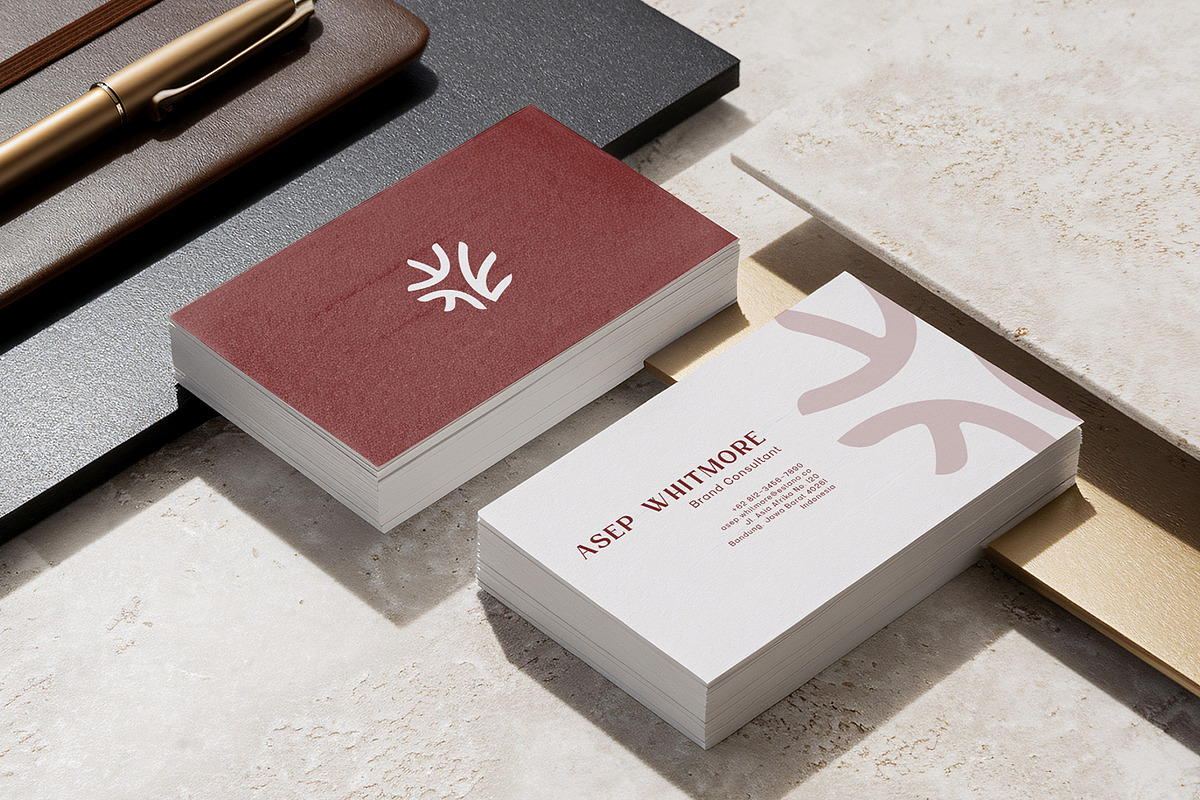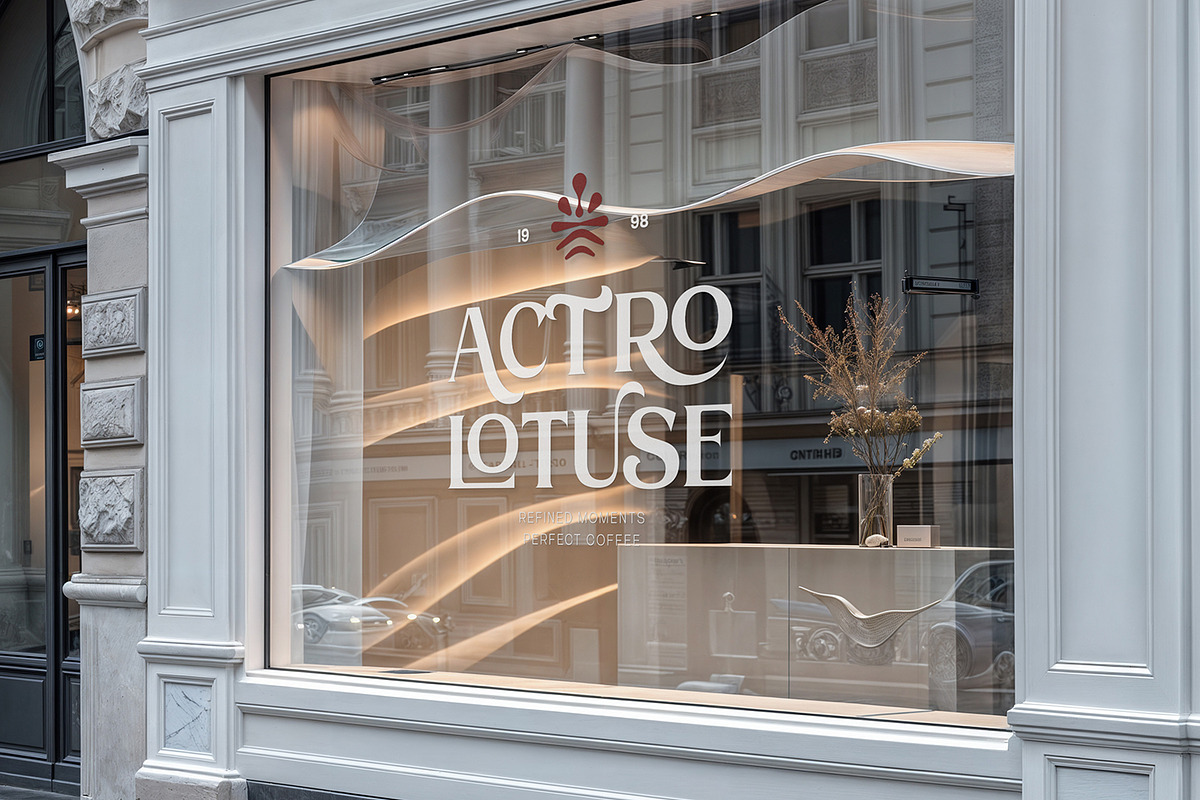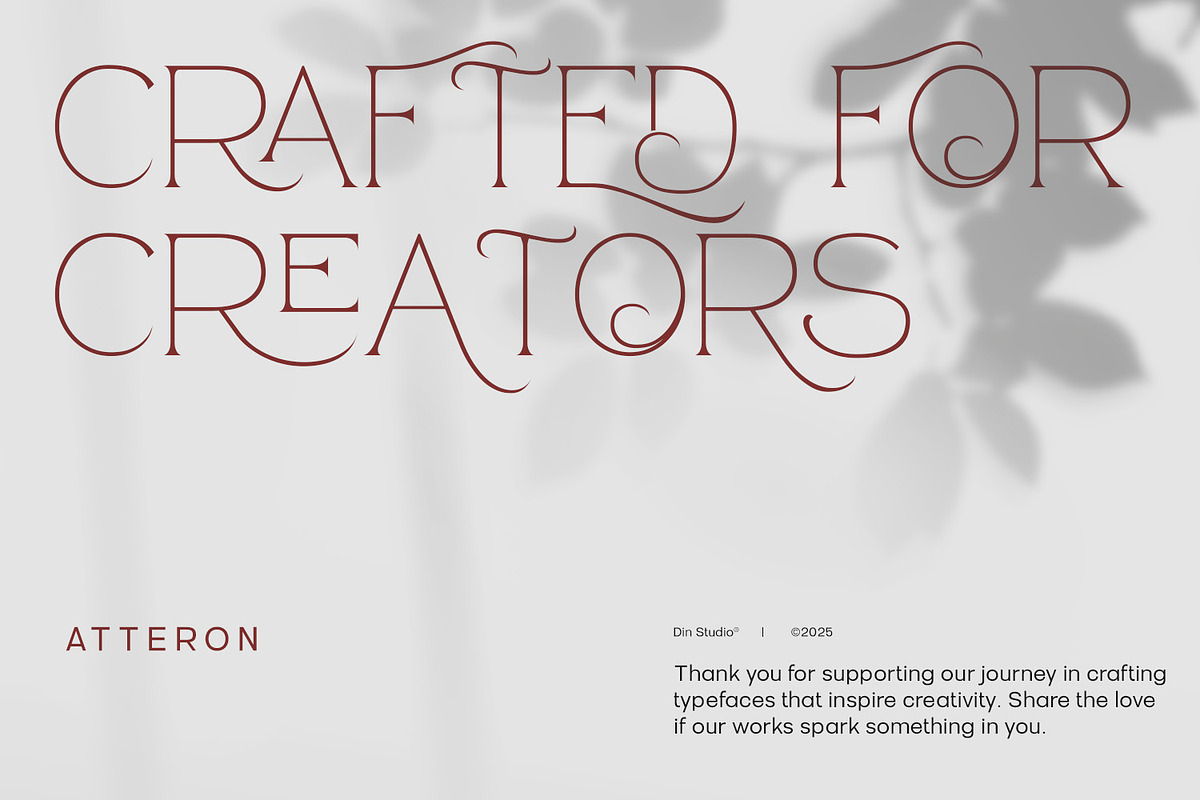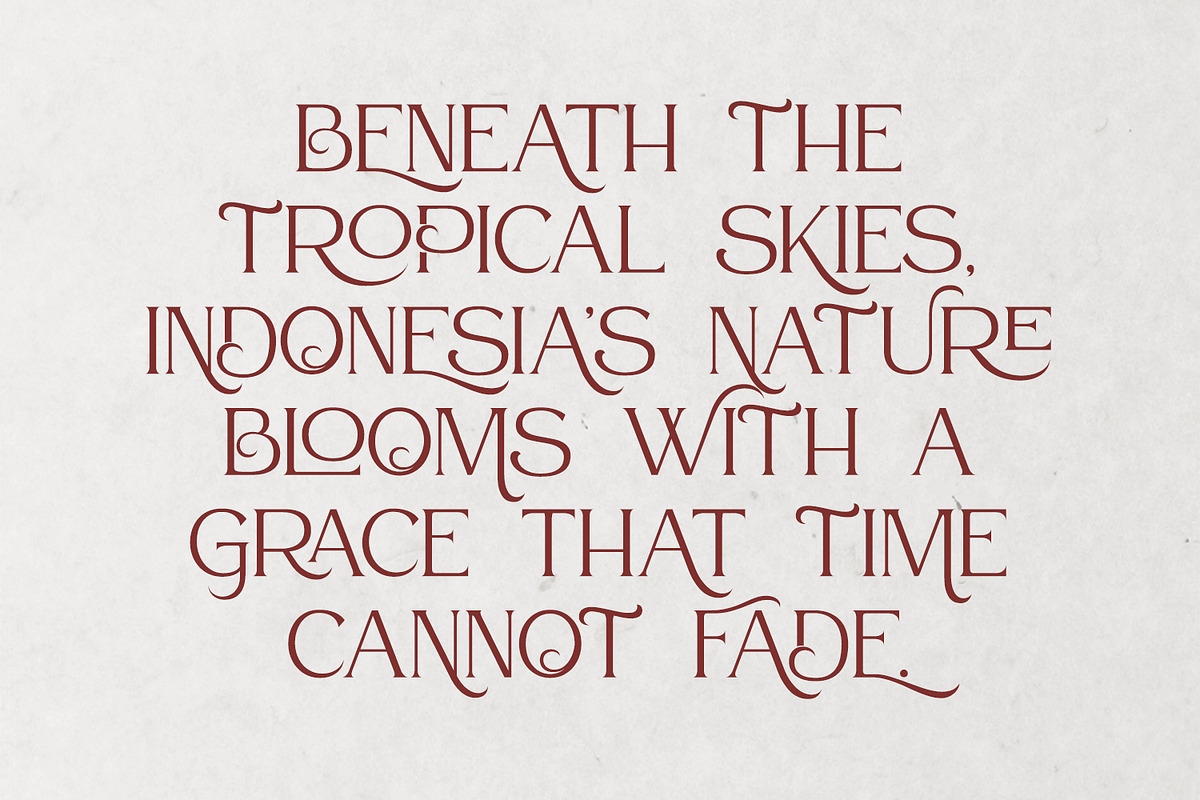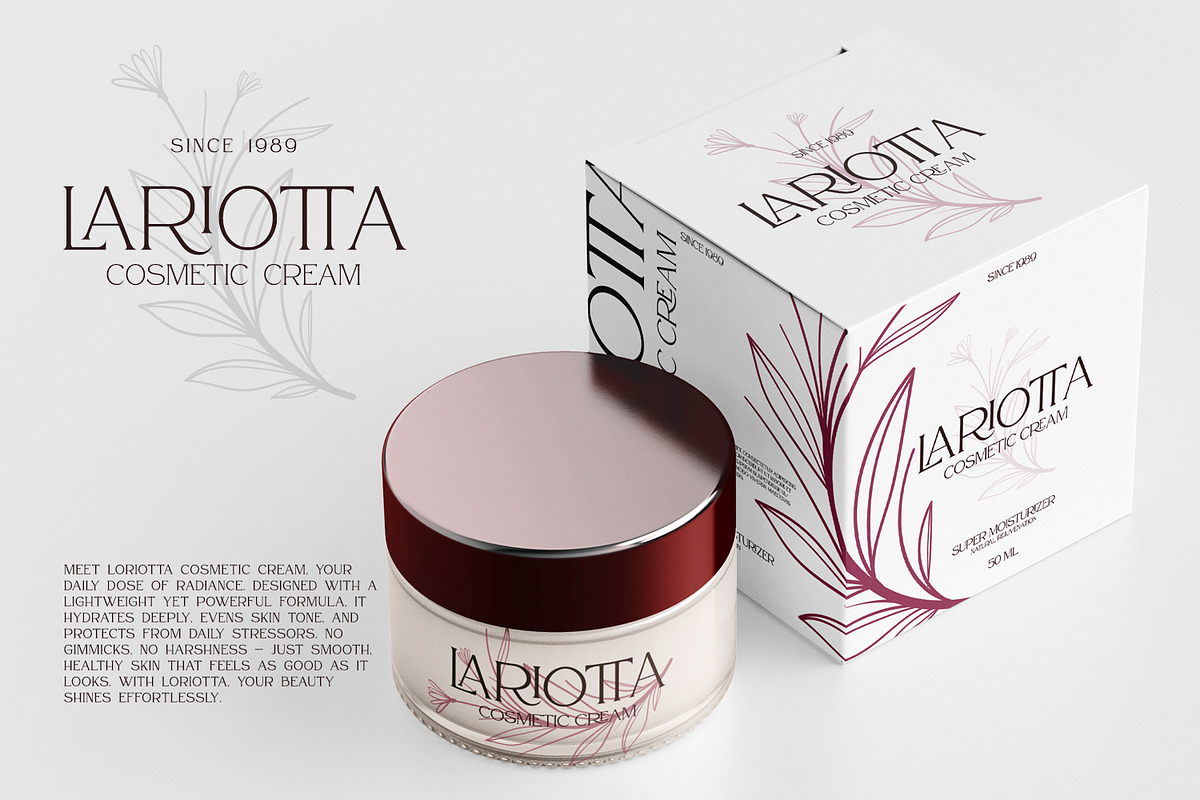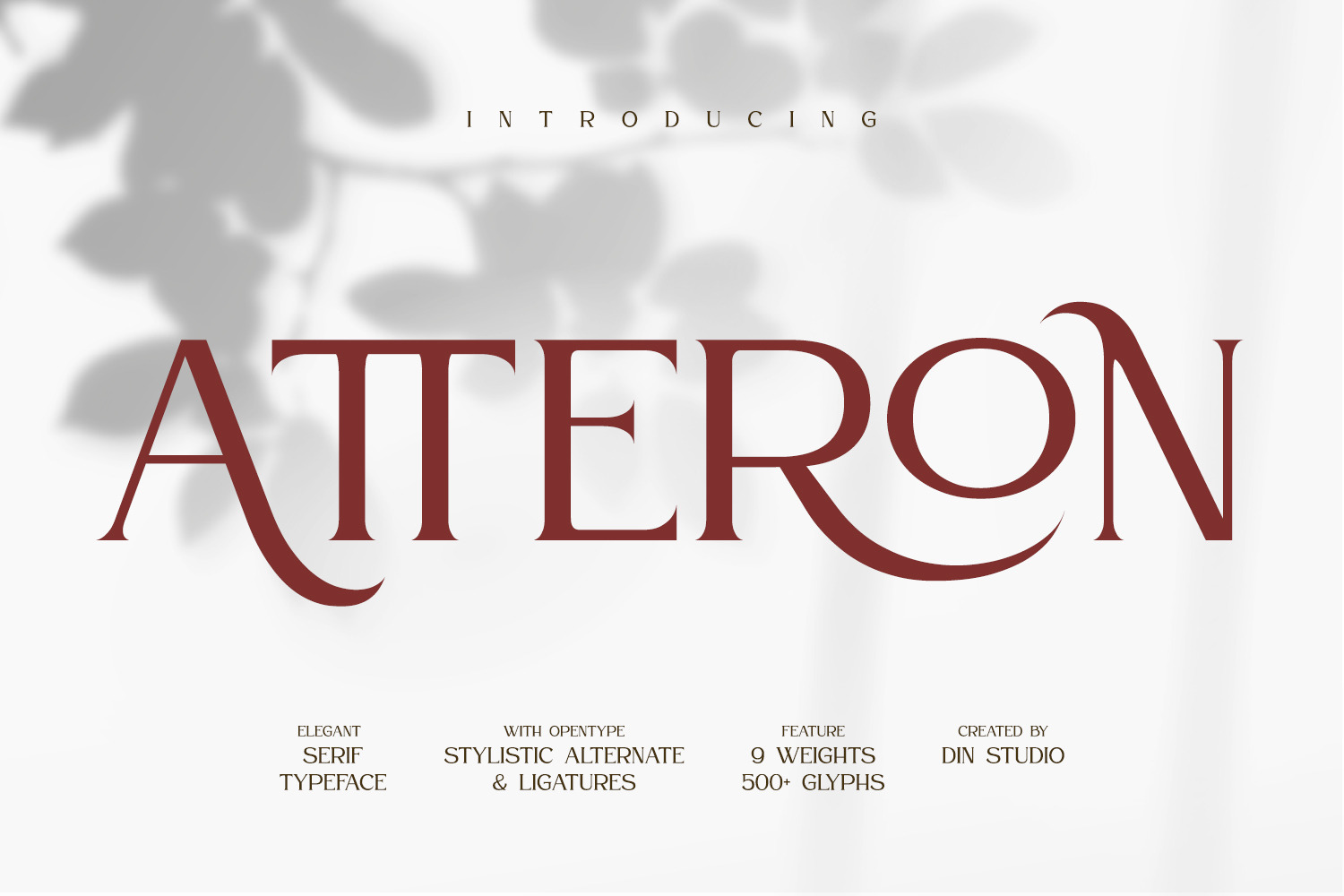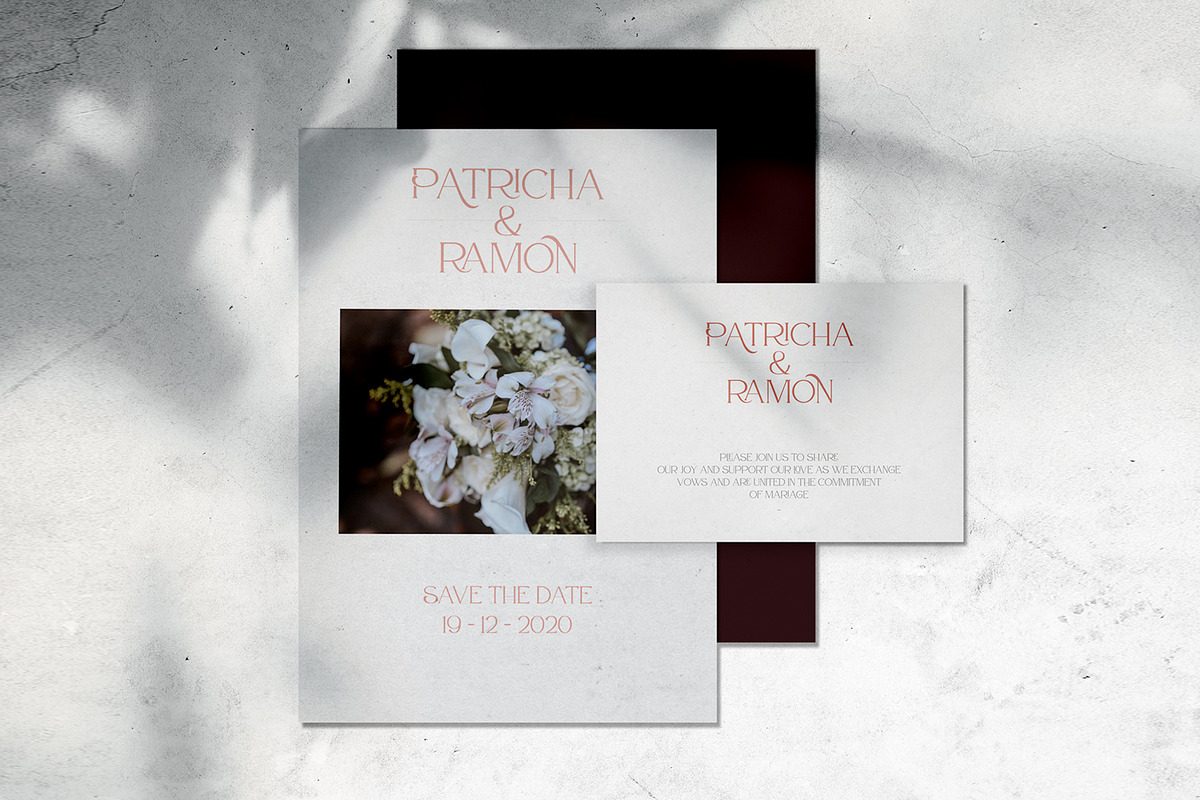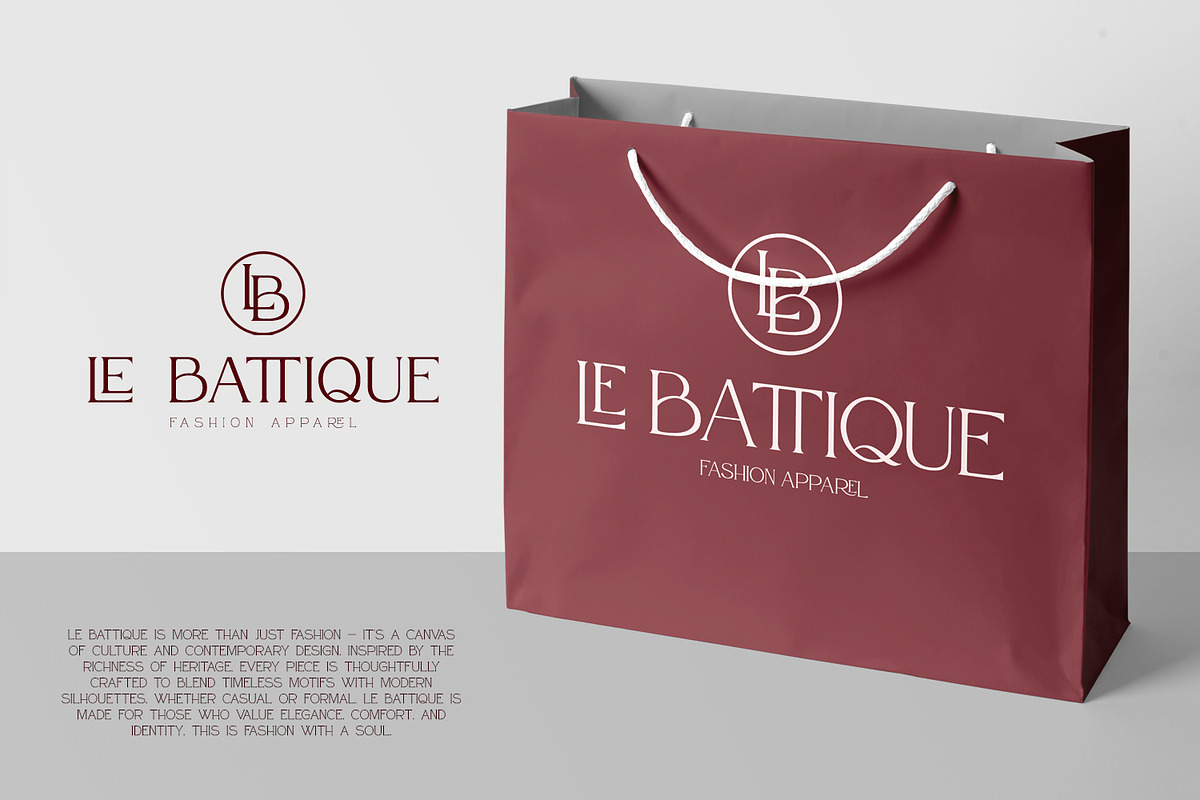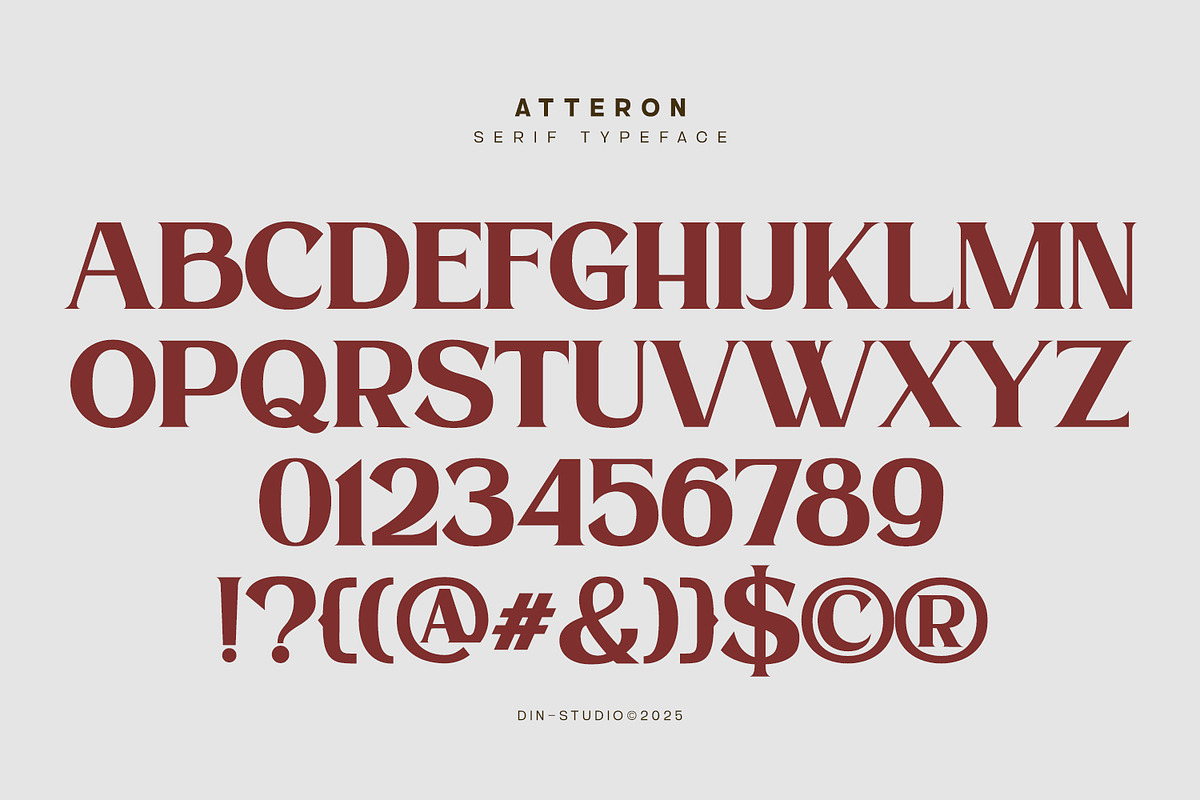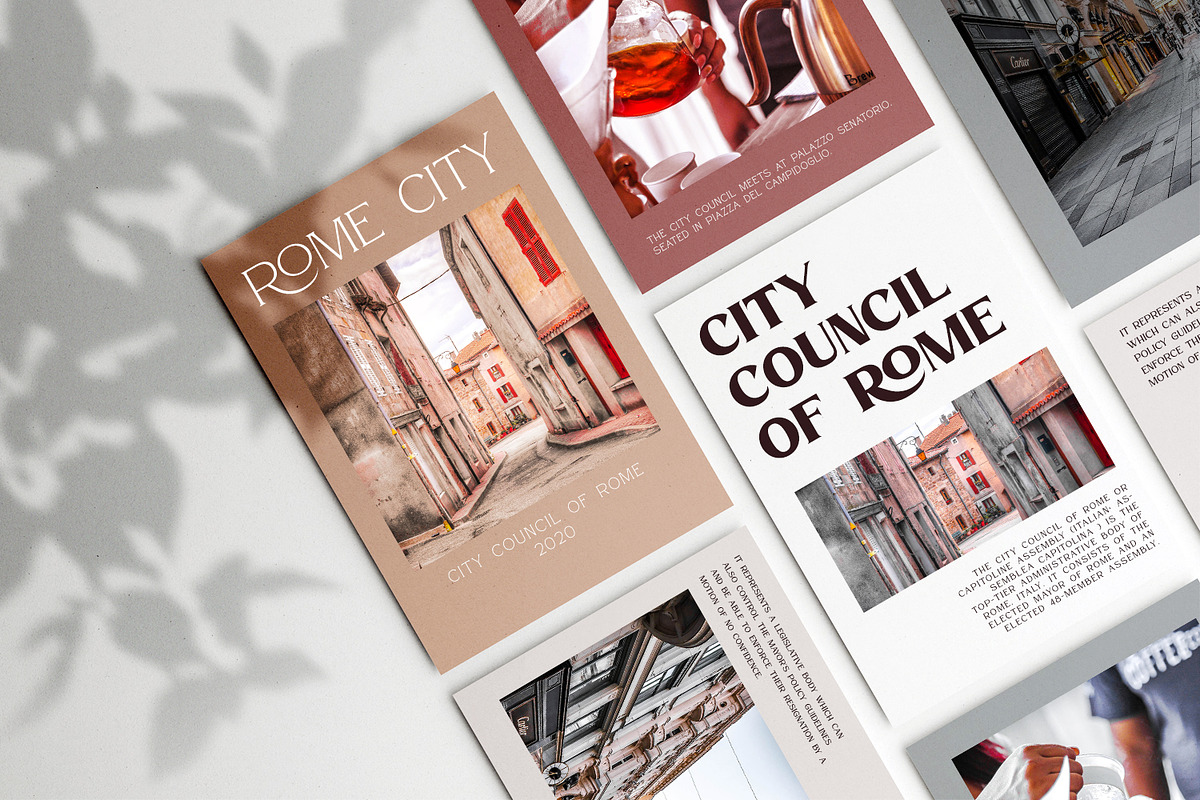
Atteron-Elegant Serif Font
Atteron is an elegant serif font made for any professional project brandings. It is the best for any design projects, such as posters, banners, logos, book covers, album covers, quotes, invitations, greeting cards, name cards, headings, printed products, merchandise, social media, etc. Find out more ways to use this font by taking a look at the font preview.
- Beautiful Alternates
- Stylistic Set